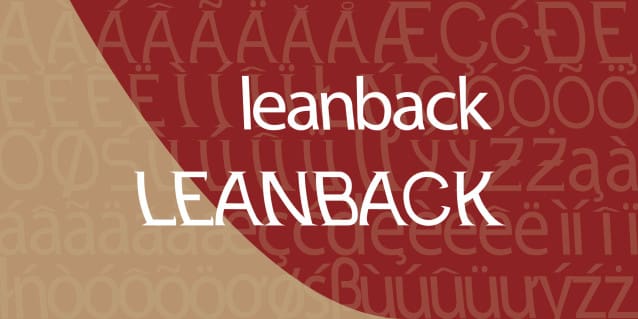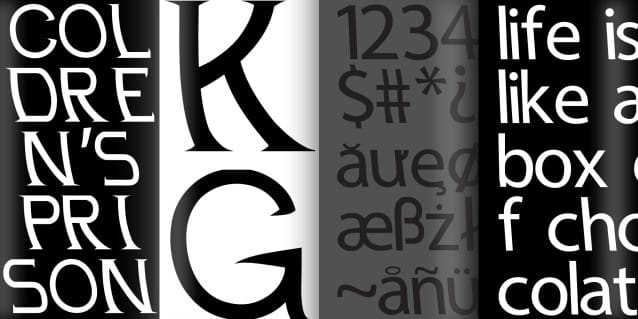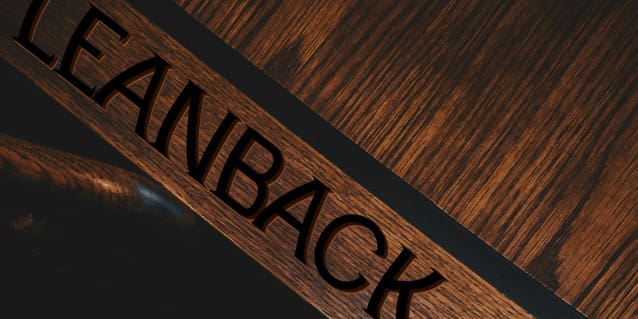
Leanback Font
Leanback Font, reversed italics, leaning backward with a curve to capitalized letters. Special Spanish, Norwegian, Danish, Polish and Vietnamese characters available in the font.